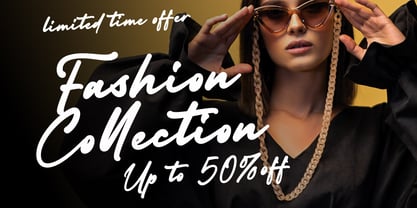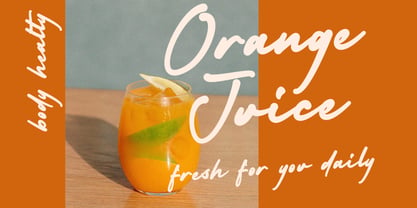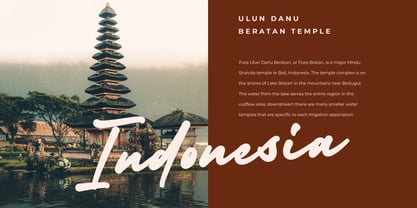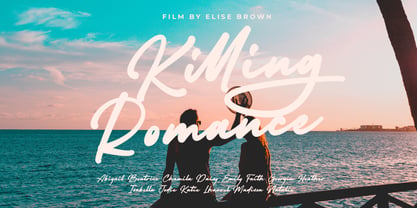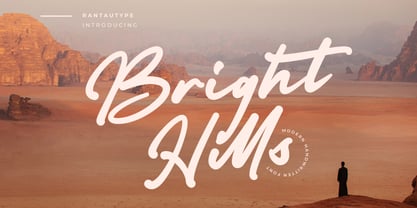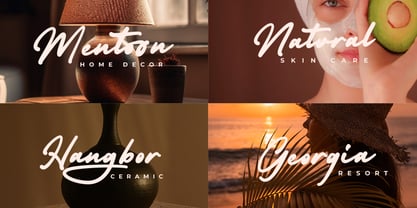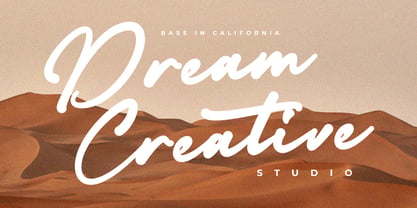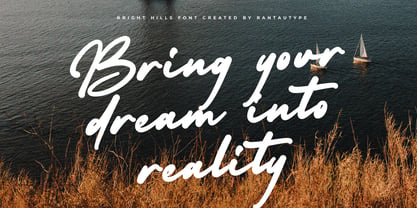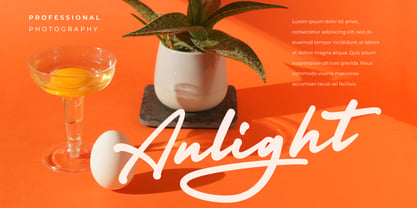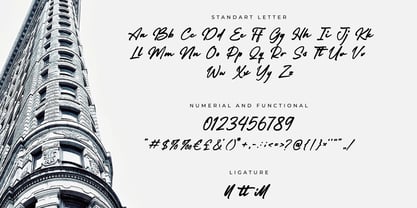
Bright Hills
by RantauType
The Bright Hills Font Family was designed by Yudi Pratama Chandra and published by RantauType. Bright Hills contains 1 styles. More about this family
Bright Hills - modern style font which can be interpreted professional. we keep this font looks modern, readable, stylish, catchy and easy to use.
Bright Hills - is the great choice for watermark on photography, branding, wedding event, signature or signature logo design, quotes, album cover, magazine, business card and many other design project. Comfort Home here to make your work to high level!!!
Features
• Standar character A-Z and a-z
• Numberial and Functional
• Ligature
Designers: Yudi Pratama Chandra
Foundry: RantauType